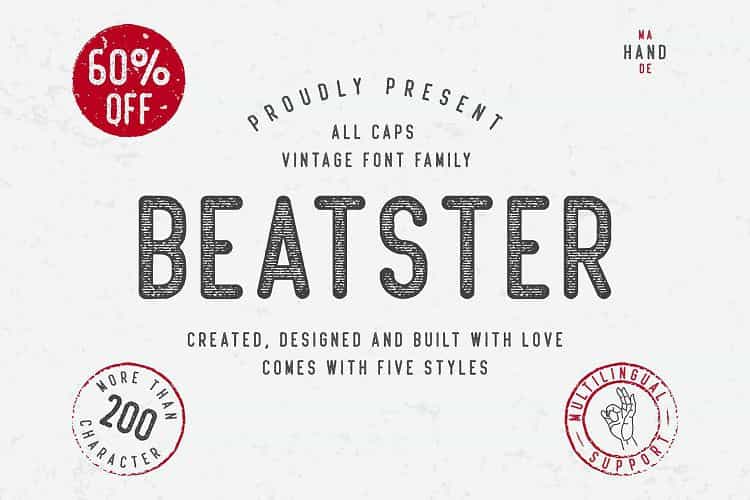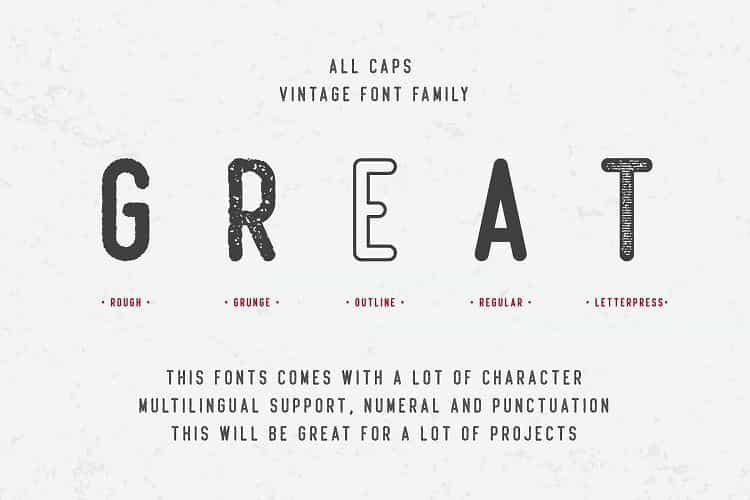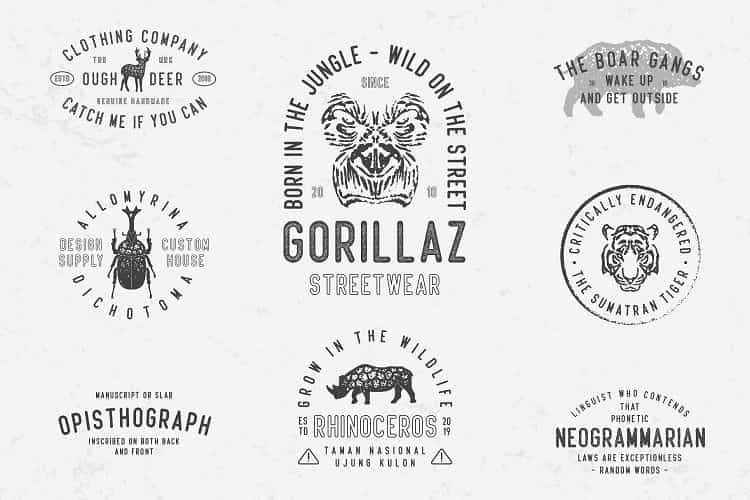
MuSan has developed and produced the Beatster Typeface which is a stunning handmade typeface in vintage style. It was inspired by Western culture that had been around for many years. The pack offers a great choice of fonts for classic designs, especially the ones with added illustrations. Perfect for logotype badges, clothing items, posters and many other things!